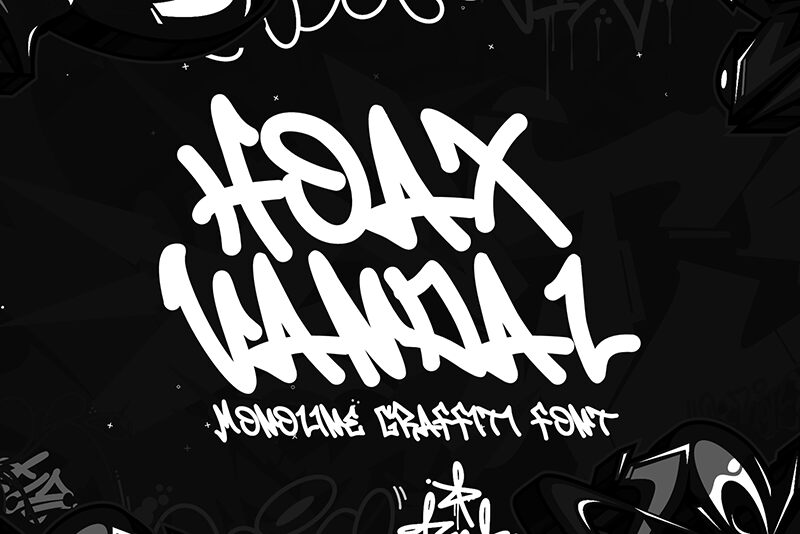
Hoax Vandal font family by Cikareotype Studio consists of 2 styles inspired by graffiti lettering. While the name suggests a misdeed such as vandalism, this street art font is a unique form of self-expression. The letters within it are hand-drawn and arranged digitally to form a cohesive yet irregular flow. Hoax Vandal manages to communicate playfulness and joy while maintaining its attention-grabbing characteristics. It is a perfect free font for street style projects!